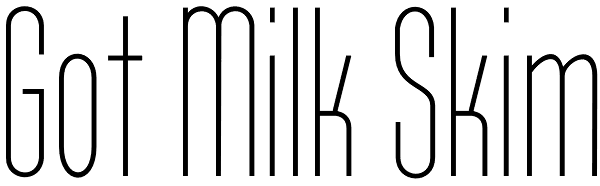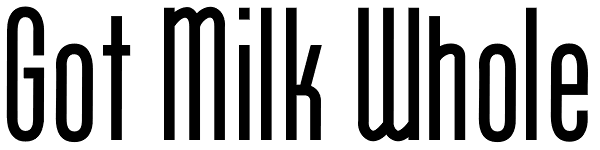
Got Milk
Working on a parody of the “got milk?” ads and loved the challenge of creating a whole font (family) from 8 glyphs. Quite condensed, clean, jaunty san serif Usage recommendations Advertising, announcements, logos
Got Milk Skim
Got Milk Whole
Gotmilk Cream